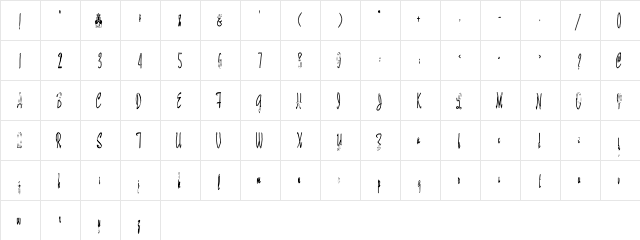
MaidstoneScriptHC Regular
Design Context for MaidstoneScriptHC Typeface
MaidstoneScriptHC flows with the natural rhythm of handwritten lettering, making it ideal for designs that call for warmth and personal expression.
Font Pairing: Combine MaidstoneScriptHC with a simple geometric sans for maximum contrast — the tension between flowing curves and clean structure is a classic typographic pairing.
Pro Tip: Pair MaidstoneScriptHC with a clean sans-serif for supporting text. The contrast between fluid script and geometric structure creates an elegant typographic hierarchy.